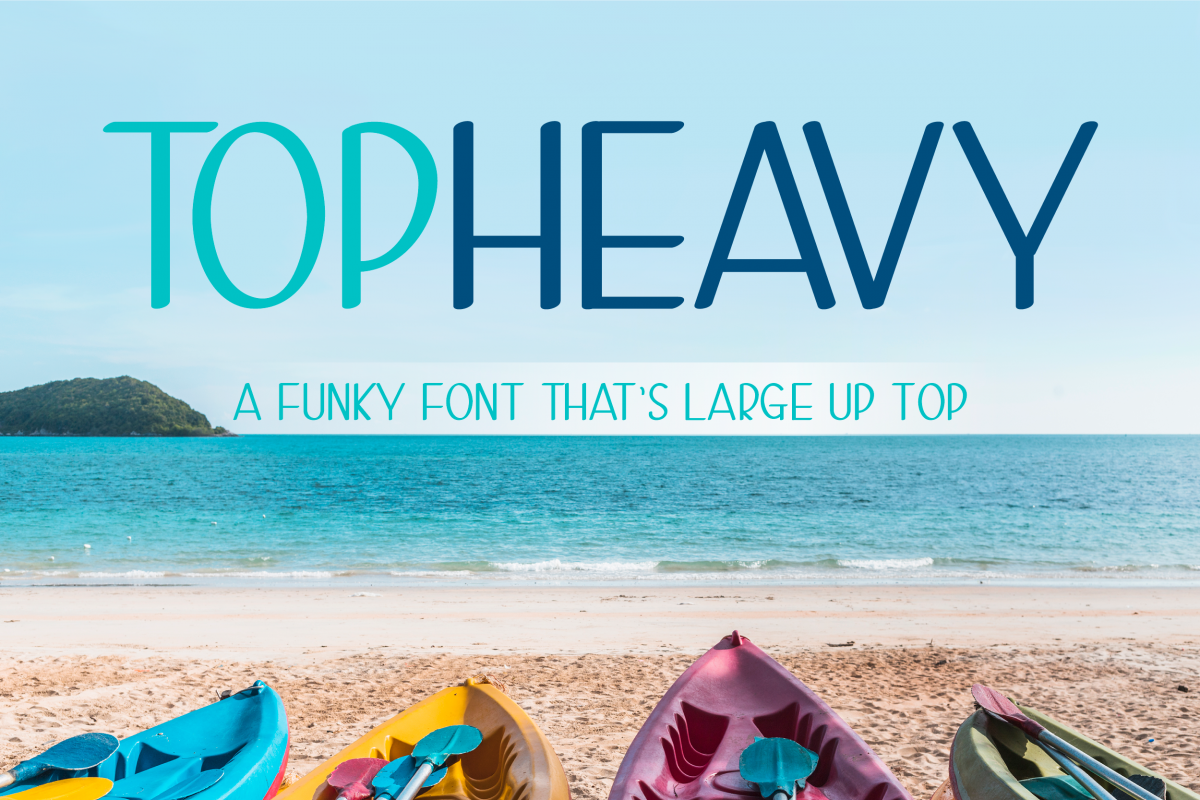
Top Heavy - 3 Large Top Fonts Included!
Top Heavy - A Funky Font That's Large Up Top! 3 Fonts Included!
Regular • Bold • Outline
Regular & Bold Include characters for Spanish & German